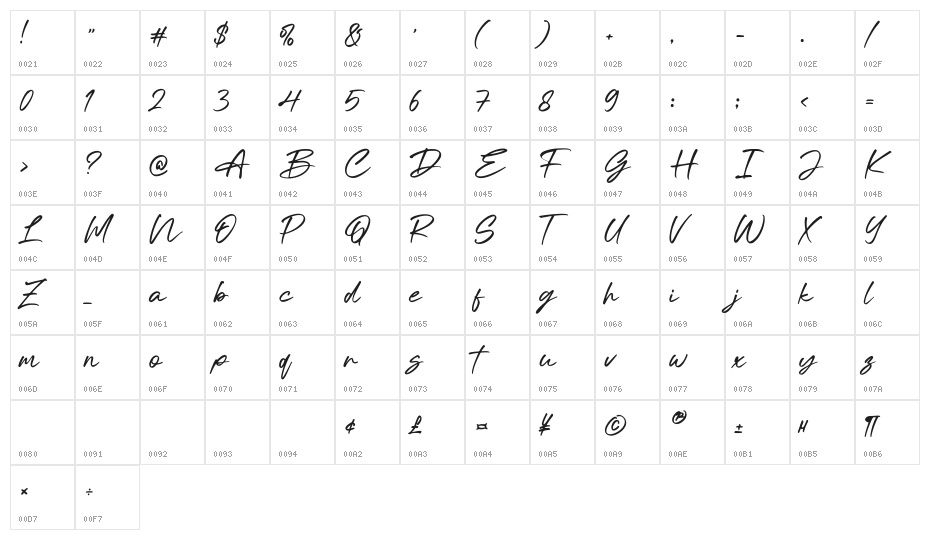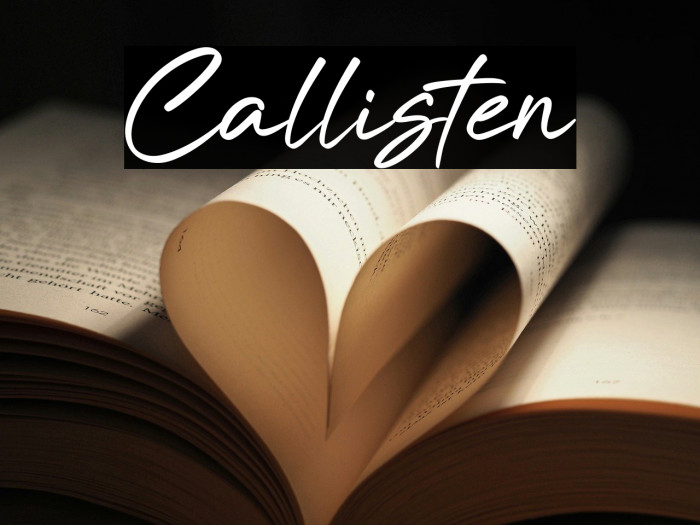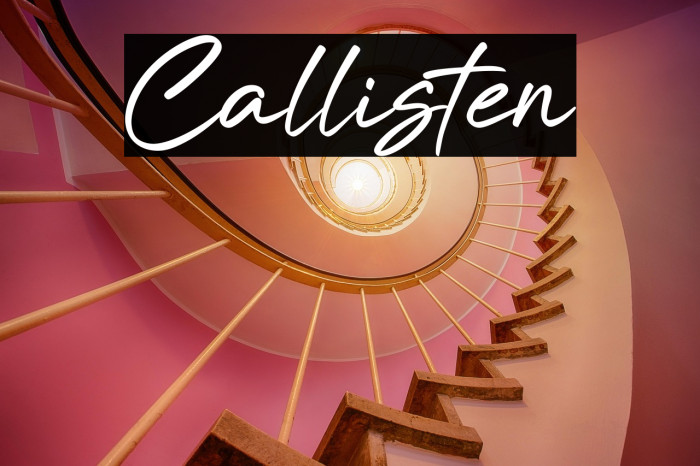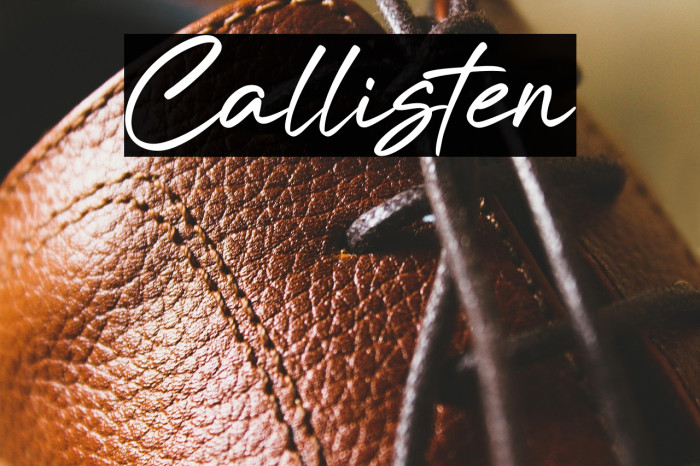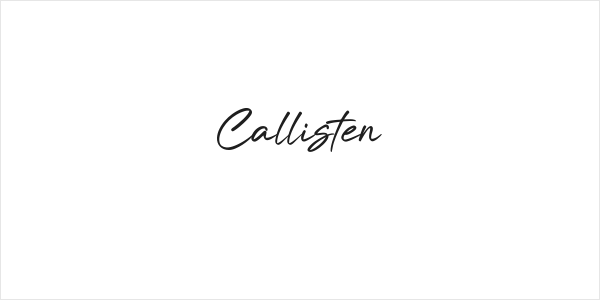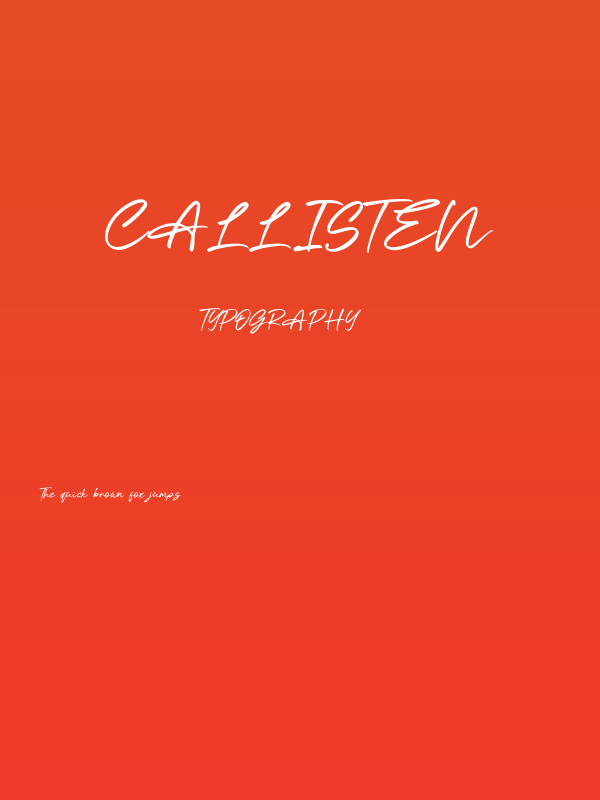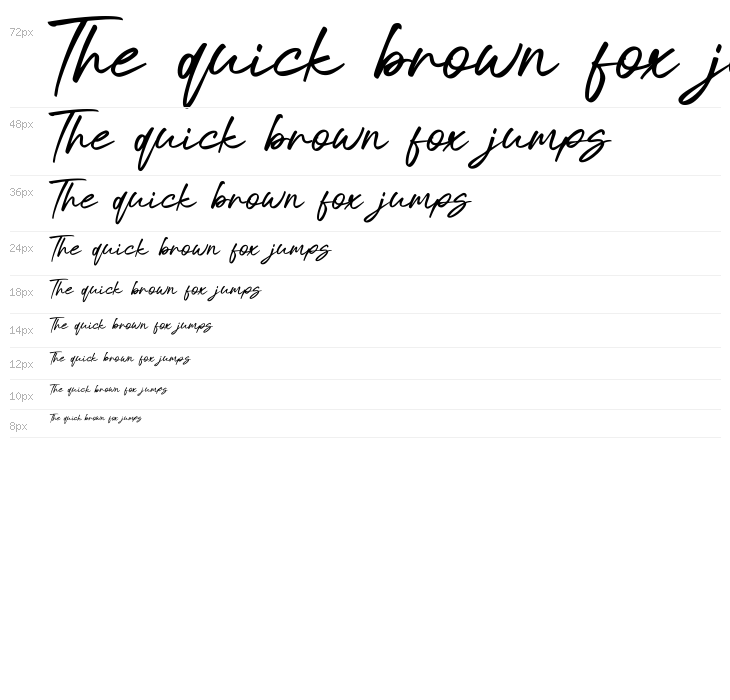
Callisten Font
Callisten Description
This font exudes a dynamic and fluid style, characterized by its cursive, handwritten appearance. The letters are elegantly connected, giving a sense of continuity and flow. The strokes vary in thickness, adding a lively and personal touch to the text. The uppercase letters maintain a consistent height, while the lowercase letters feature graceful loops and curves. Numbers and special characters are designed to match the overall aesthetic, ensuring a cohesive look across all elements. This font is ideal for projects that require a personal, informal, yet stylish touch.
| Use Case | Logos, Headlines, Invitations |
| Proposed Projects | Ideal for wedding invitations, greeting cards, personal branding, and creative projects requiring a personal touch. |